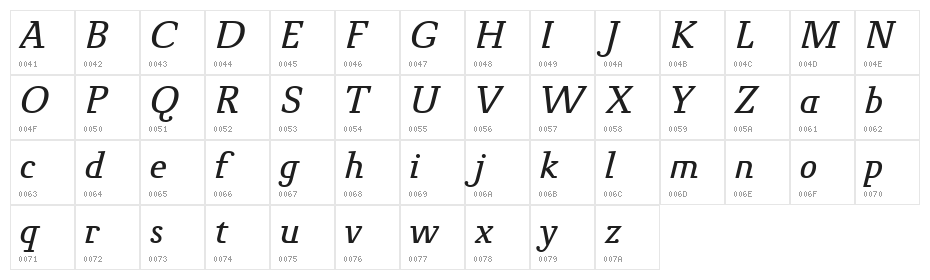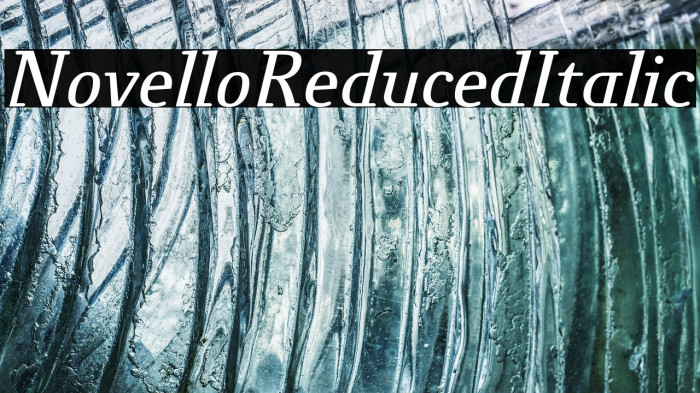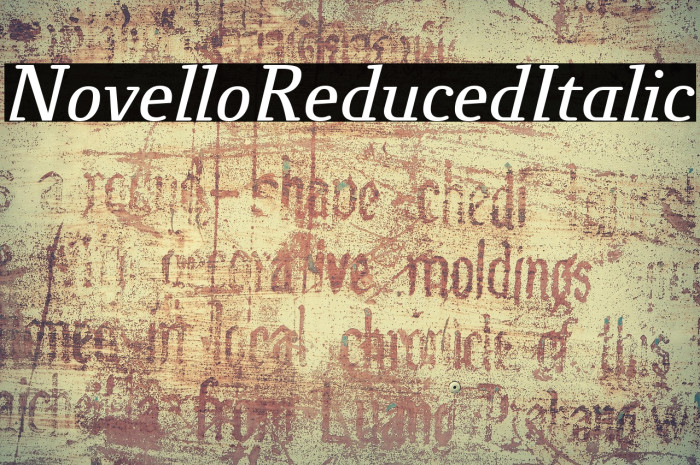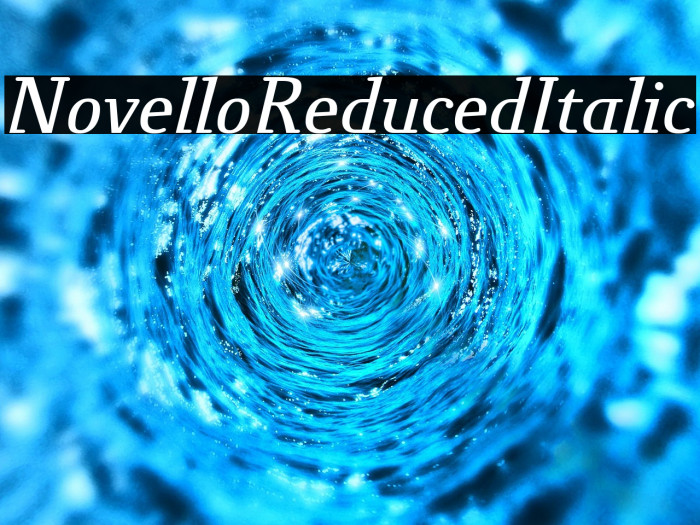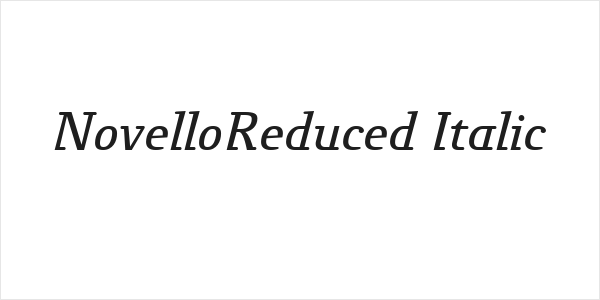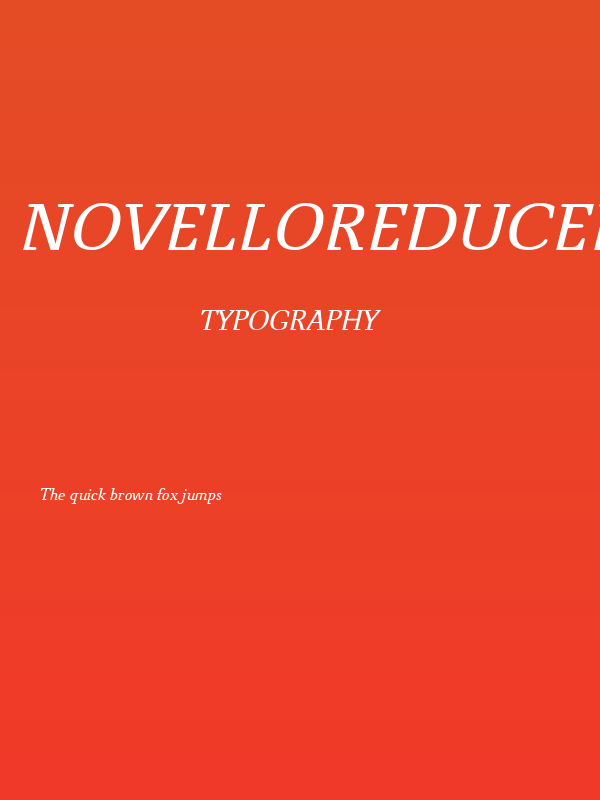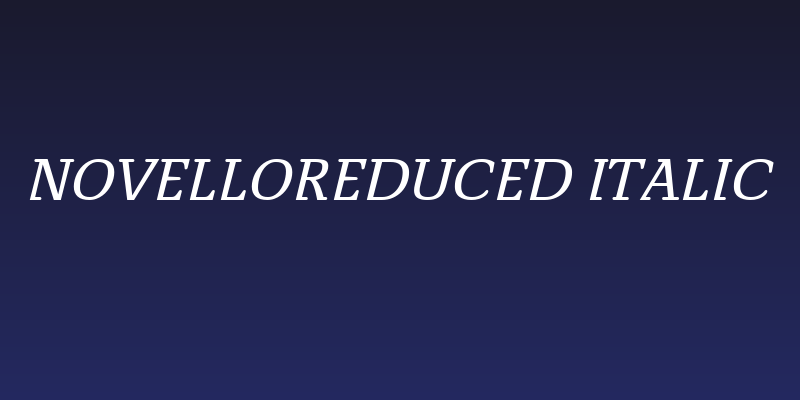
NovelloReduced-Italic Font
NovelloReduced-Italic Description
This font exhibits a classic serif style with a distinct italic slant, giving it an elegant and sophisticated appearance. The characters are well-defined with moderate contrast between thick and thin strokes, enhancing readability while maintaining a refined aesthetic. The serifs are pronounced yet not overly ornate, contributing to a timeless feel. The font's overall design is balanced, with consistent character spacing that ensures clarity and legibility across various text sizes. Its italic nature adds a sense of dynamism and flow, making it suitable for both formal and creative applications.
| Proposed Projects | Ideal for use in editorial design, book covers, formal invitations, and branding materials that require a touch of sophistication. |